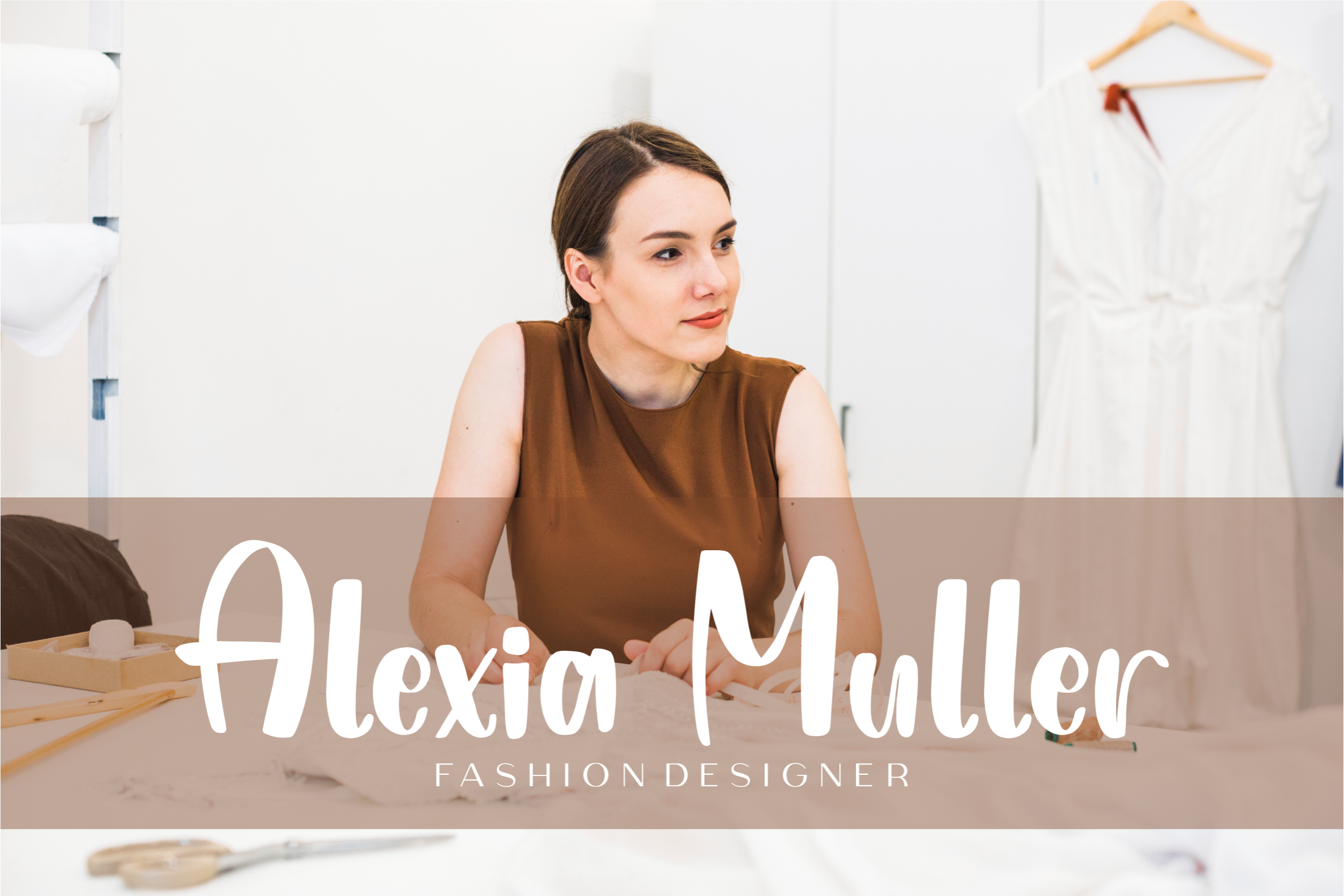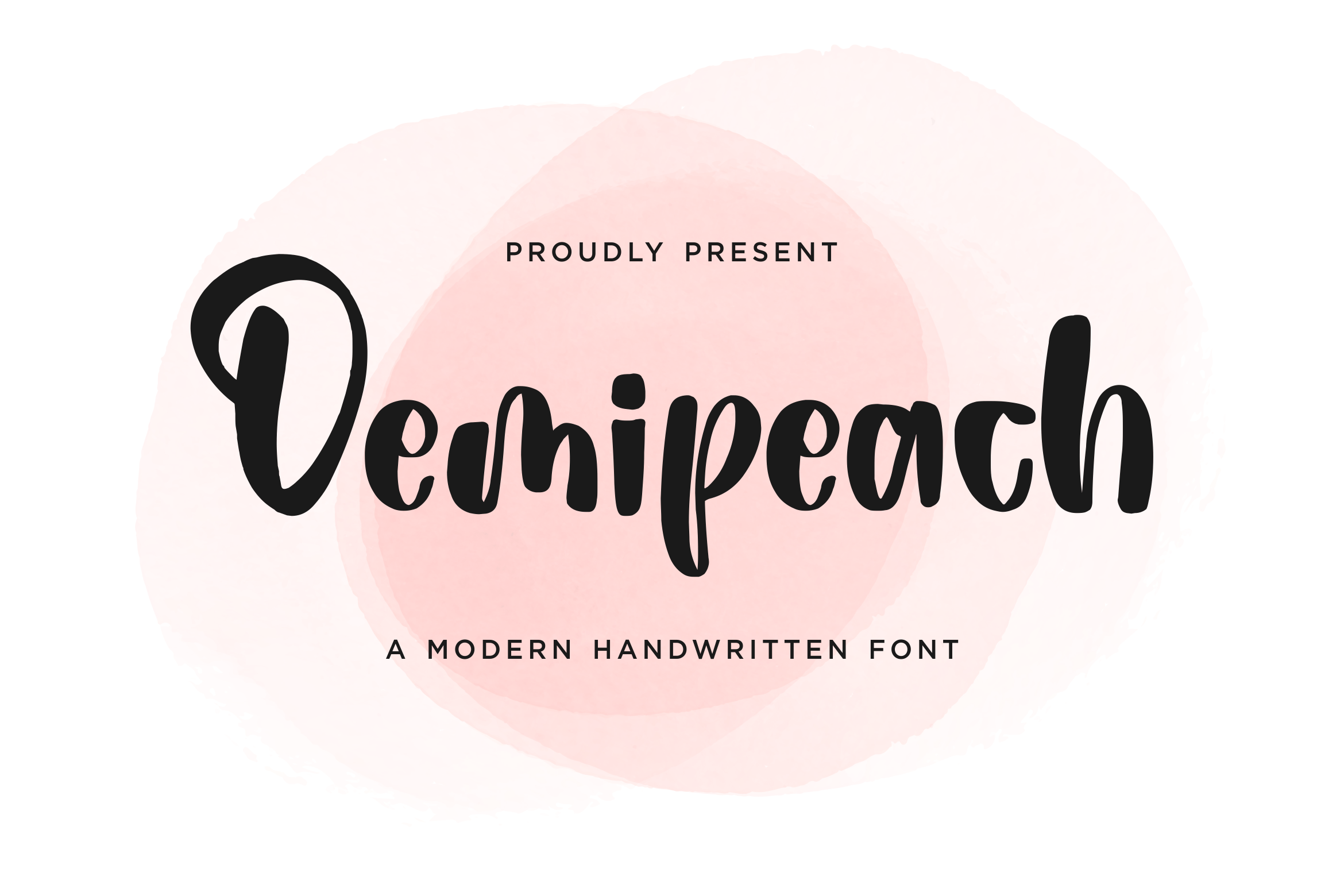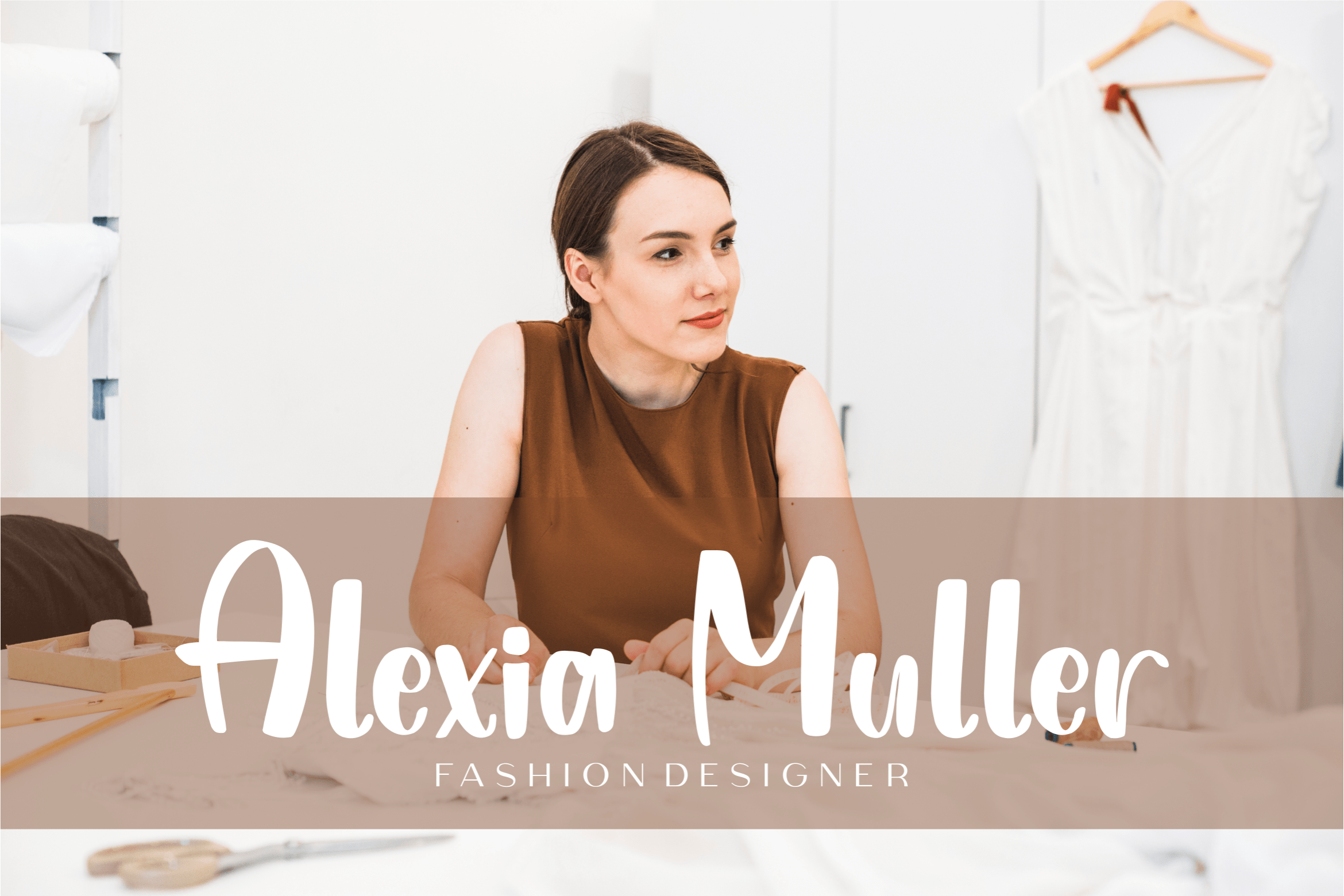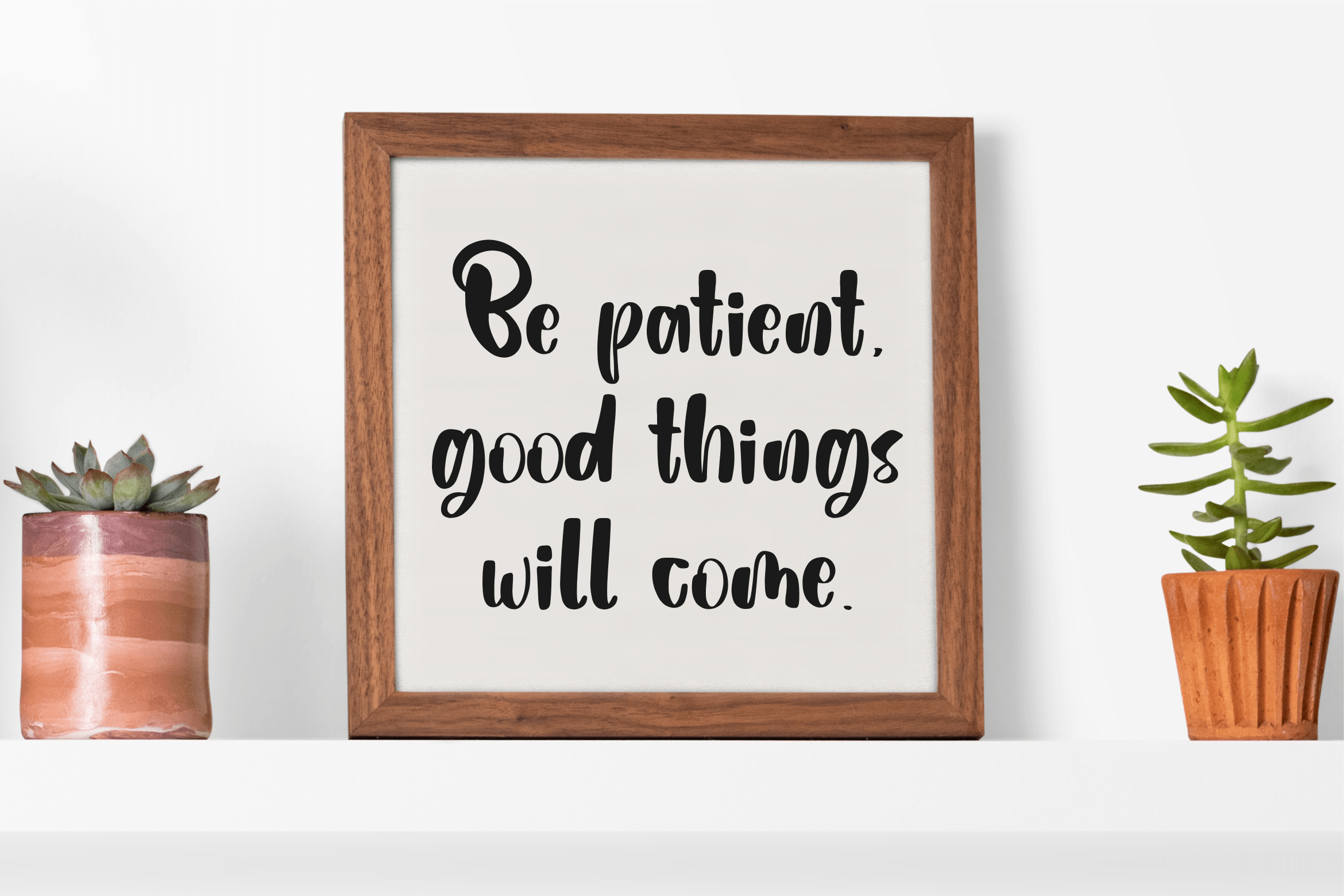
Demipeach Font
Demipeach Script Font
This is a gorgeous handwritten font perfect for product packaging, branding project, magazines, social media posts, wedding invitations, or you can use it to express yourself with beautifully handwritten words!